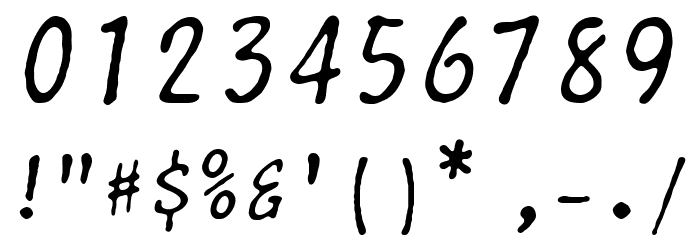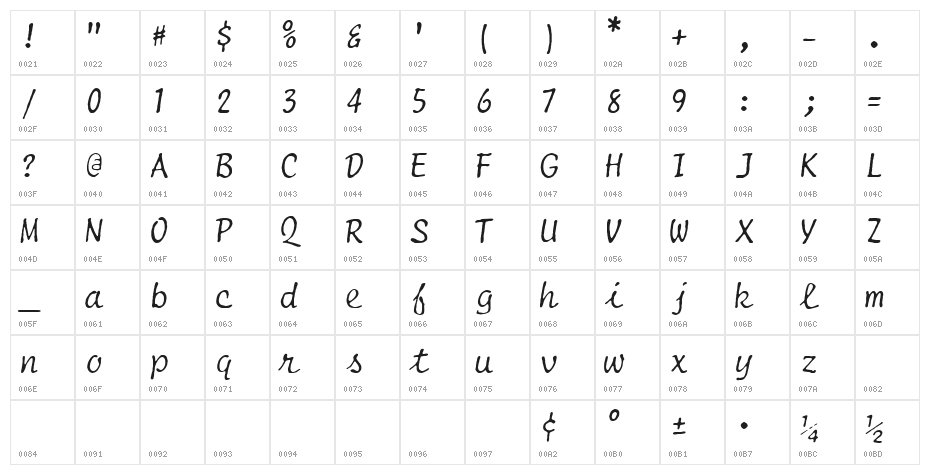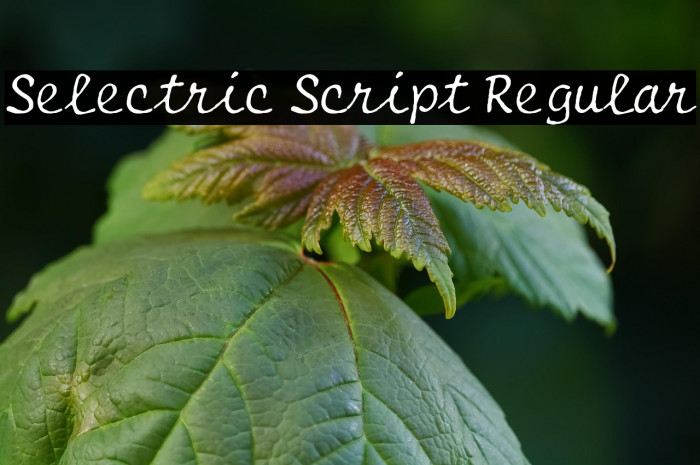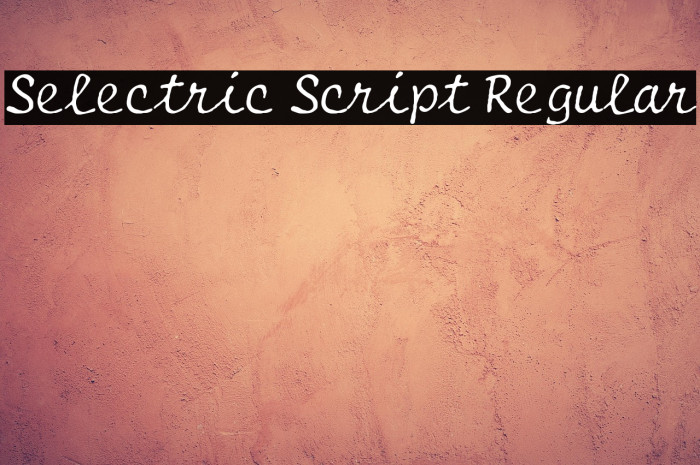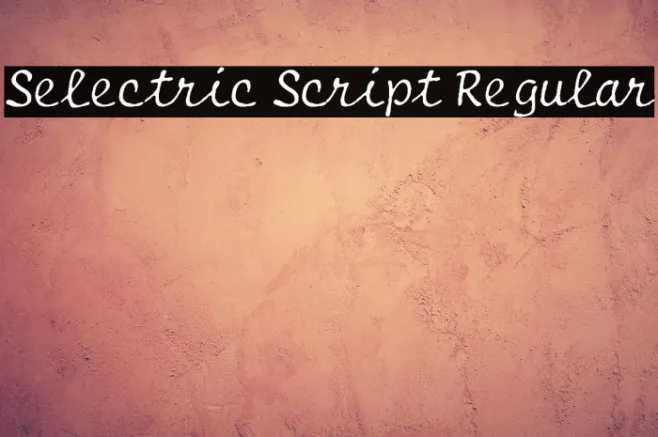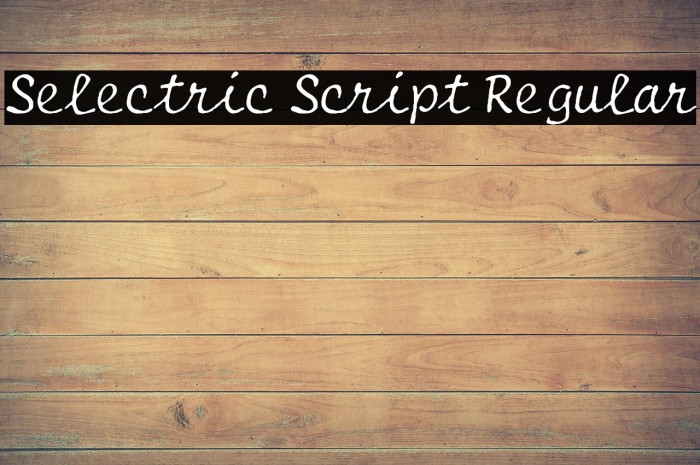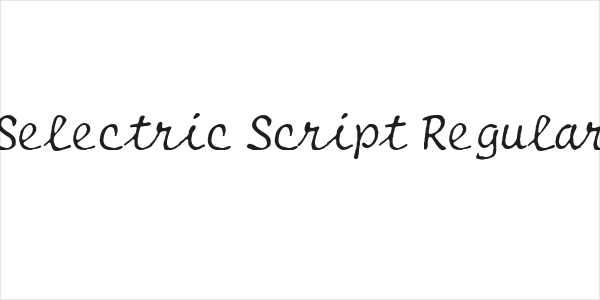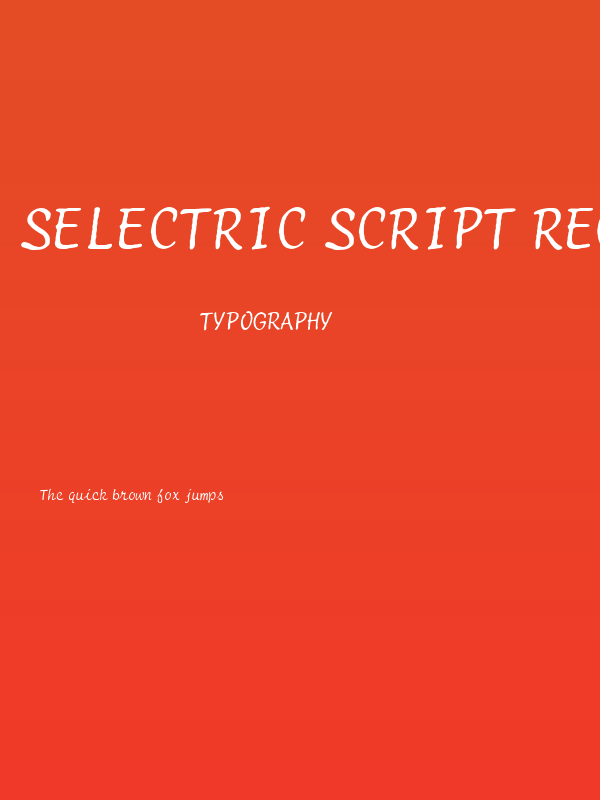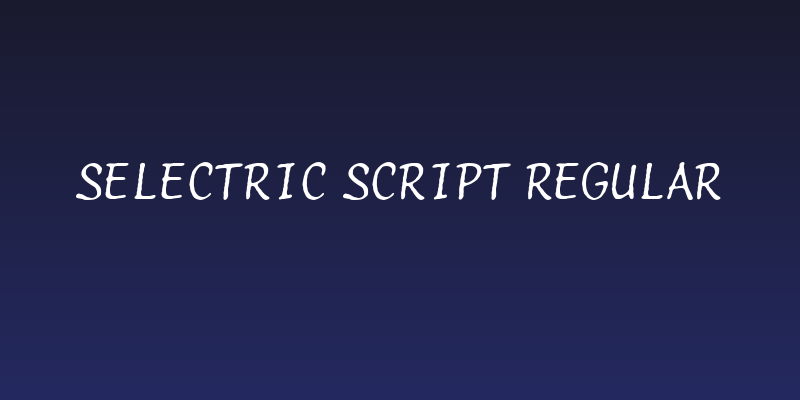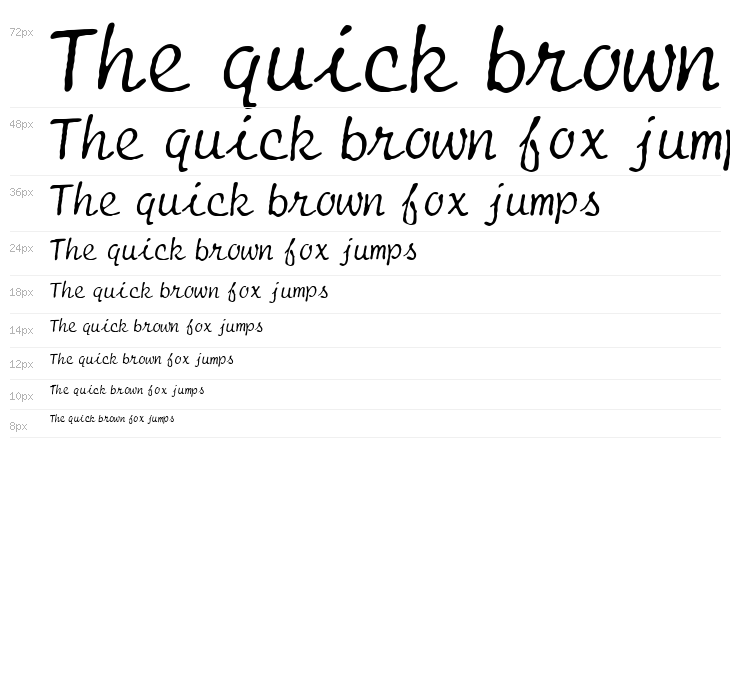
Selectric Script Regular Font
Selectric Script Regular Description
This font exudes a charming handwritten style, reminiscent of vintage typewriter scripts. The characters are elegantly crafted with a slight slant, giving them a dynamic and fluid appearance. The uppercase letters are bold and prominent, while the lowercase letters maintain a consistent flow, enhancing readability. Numbers and special characters are designed with the same attention to detail, ensuring a cohesive look across all text. The strokes vary in thickness, adding a touch of personality and warmth to the overall design.